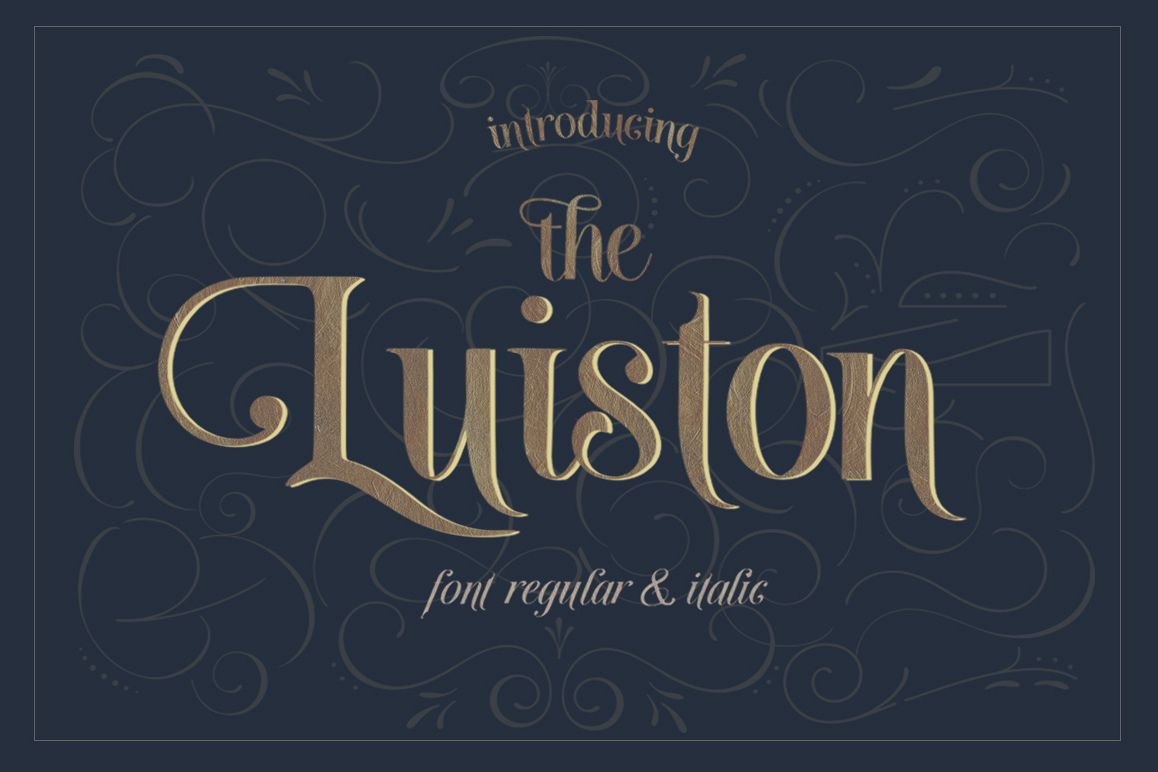
The Luiston San Serif
The Luiston is a serif that is decorative and antique and elegant. The neat and beautiful font shape makes this font easy to remember as a modern font.The luiston font is packed with alternatives, making it a versatile type that can be used in various projects. No matter what type of project you are working on, this font can help you simplify your work.This font is very representative of vintage modern and minimalist way. These fonts include alternative characters and beautiful ligatures! This font is multi functional, perfect for logo design, magazine, poster, packaging, christmas gift, wedding, or elegant invitation card.
• Bonus Vector Ornaments
• Character set A-Z with Uppercase and Lowercase letters
• Special Ligatures
• Uppercase and Lowercase Stylistic Alternates
• Ornaments Vintage